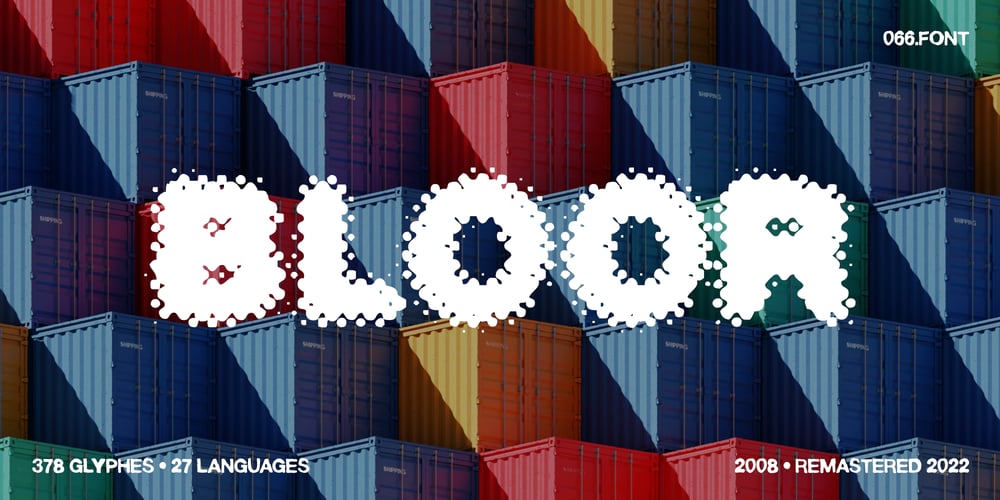
Bloor Font Family was designed by Piotr Wozniak and published by 066.FONT. Bloor contains 1 styles and family package options. Bloor is a display font whose appearance draws inspiration from the distinctive large raster effect that can be achieved with a riso machine. Bloor retains its varied and extravagant style, while its crisp and bold letters add creativity and expression to projects. It is ideal for creative applications such as posters, invitations or branding materials, where a striking and distinctive text finish is sought that catches the eye with its unique raster. Remastered in 2022.